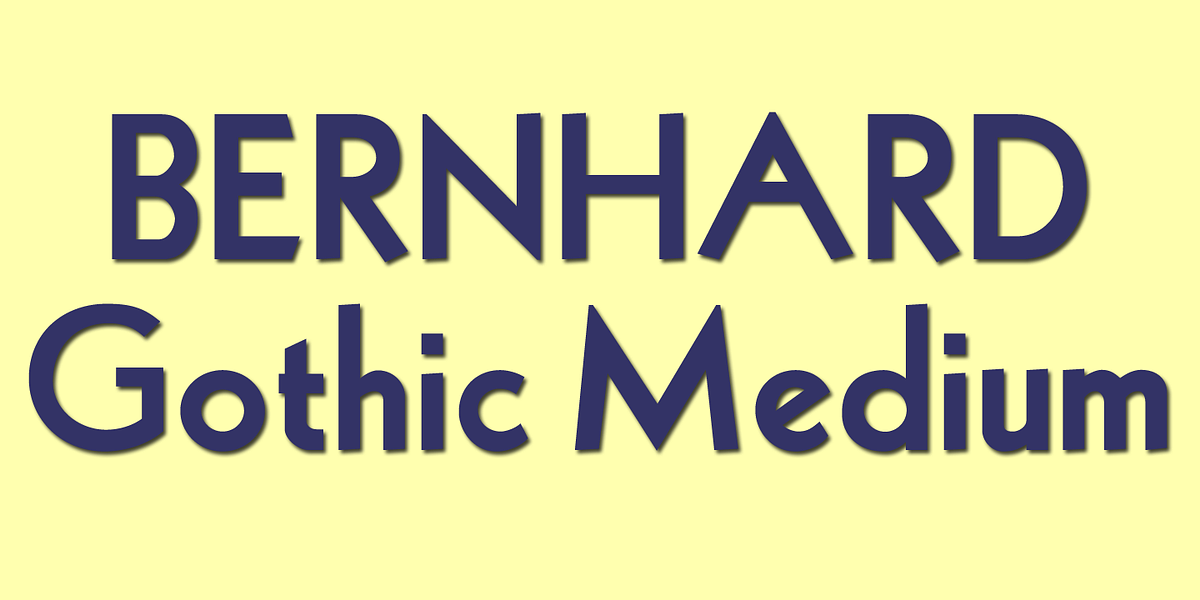
Bernhard Gothic
Lucian Bernhard is a classic geometric sans-serif font designed in 1929. Its clean lines and high contrast make it ideal for headlines, branding, and signage. The font embodies a timeless modernity.